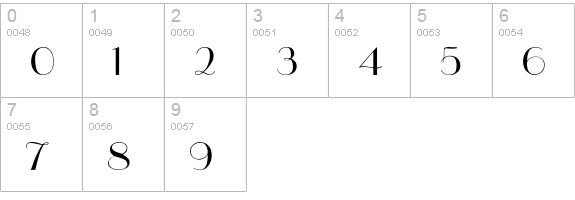
EastSide Font Details
Introducing EastSide, a visually captivating font that effortlessly blends modern sophistication with a touch of playful charm. Designed to inspire creativity and elevate any project, EastSide is the perfect choice for those seeking a font that truly stands out from the crowd. With its elegant yet bold letterforms, EastSide commands attention and leaves a lasting impression. Whether you're designing a logo, crafting a headline, or creating eye-catching social media graphics, this versatile font will bring your vision to life. But what sets EastSide apart is not just its stunning aesthetics; it's also the fact that it is completely free. Yes, you read that right! EastSide is freely available to download at FontsMarket.com, allowing you to access its beauty and versatility without breaking the bank. So why wait? Don't miss out on this incredible opportunity to add EastSide to your font collection. With its unique character and wide range of possible applications, this font will undoubtedly become your go-to choice for all your design needs. Download EastSide today and unlock a world of boundless creativity.